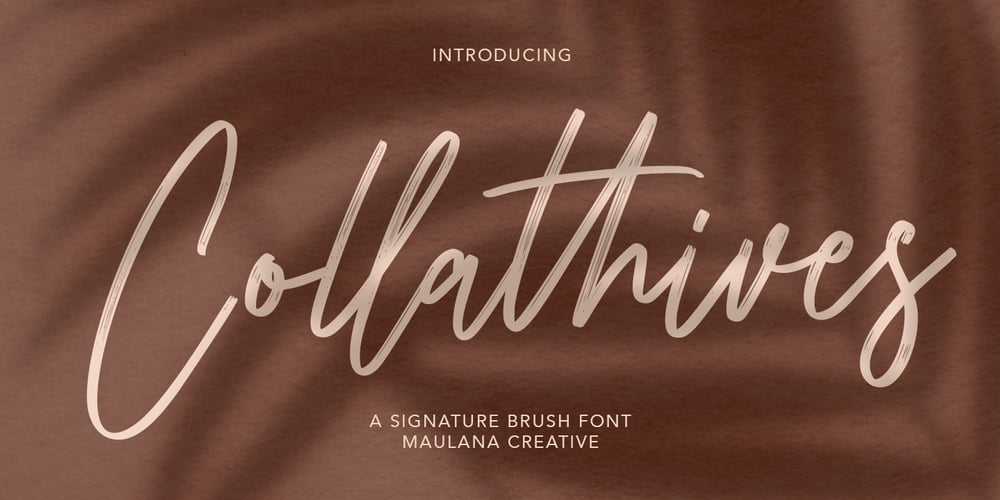
Collathives Font Family was designed by Gilang Maulana and published by Maulana Creative. Collathives contains 1 styles and family package options. Give your designs an authentic handcrafted feel. Collathives Signature Brush Font is perfectly suited to logo, stationery, branding, typography quotes, magazine or book cover, website header, clothing, branding, packaging design, restaurant and more.Thanks for use this font ~ Maulana